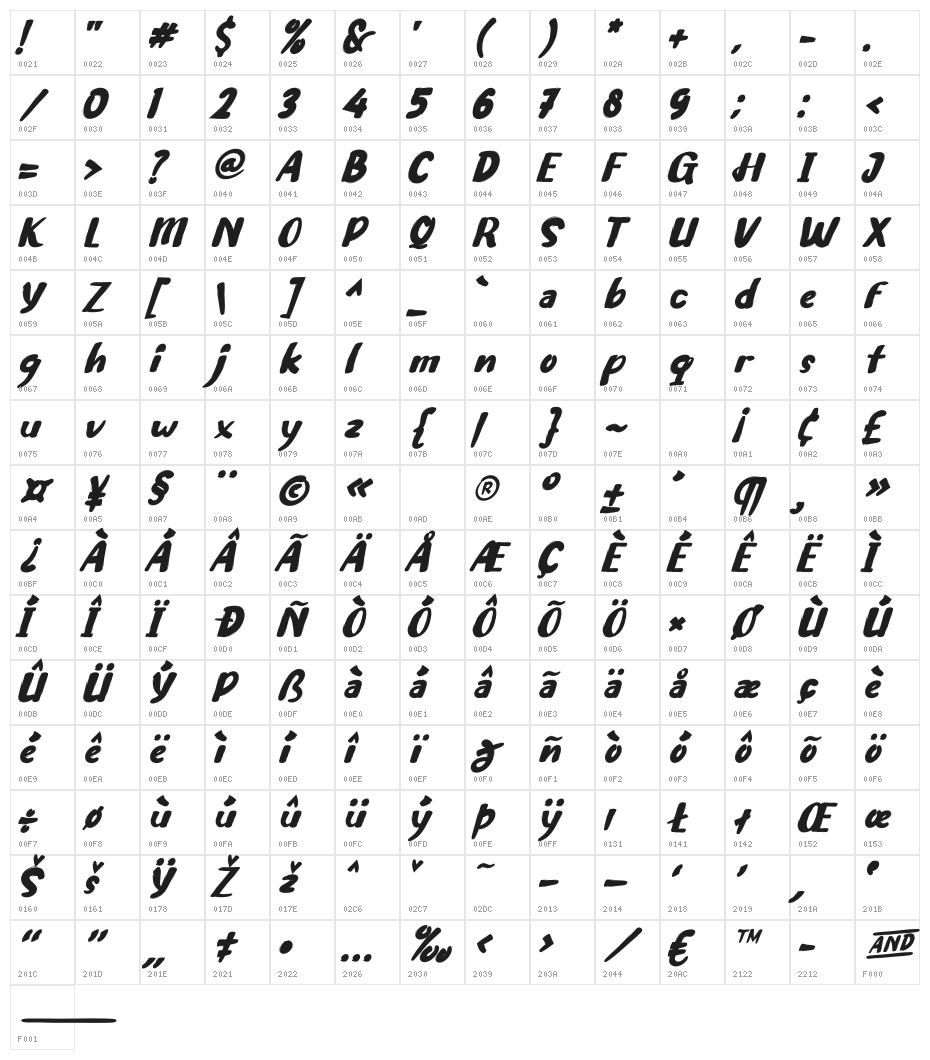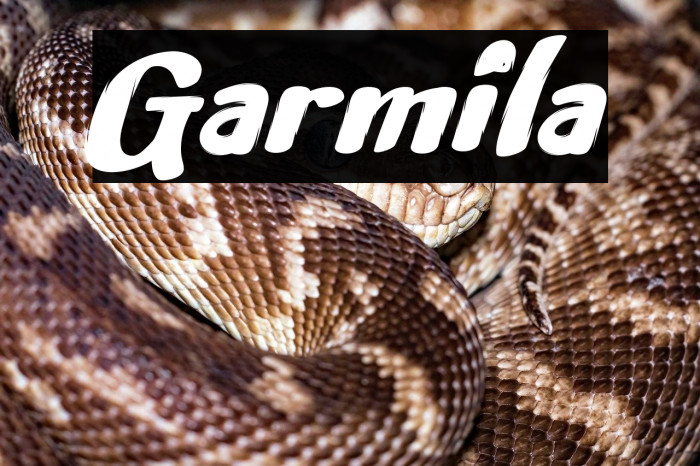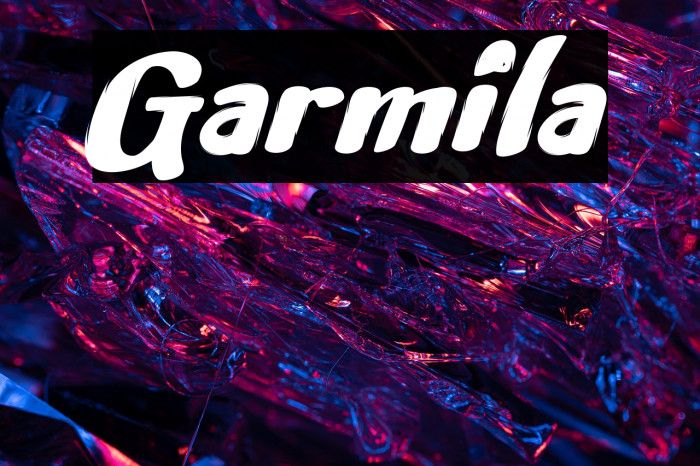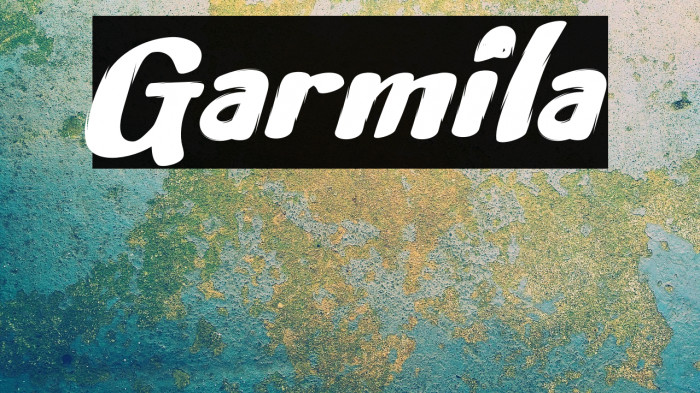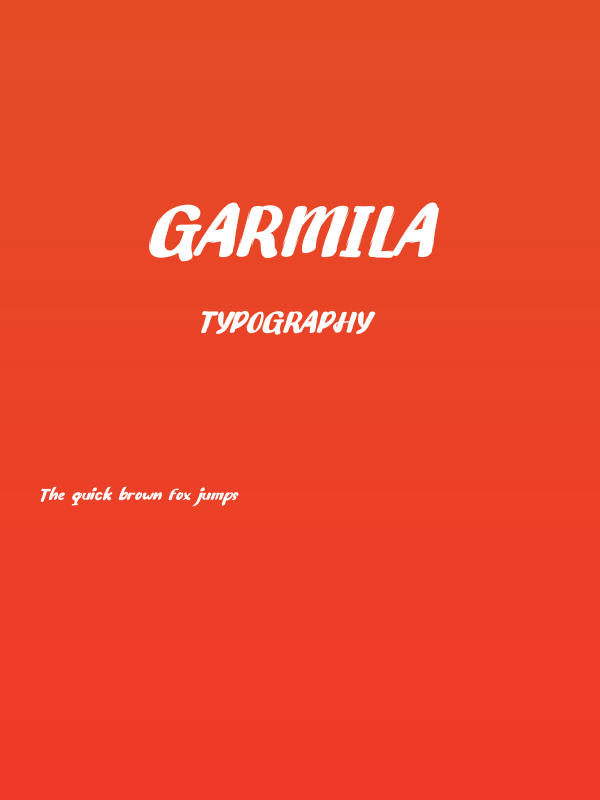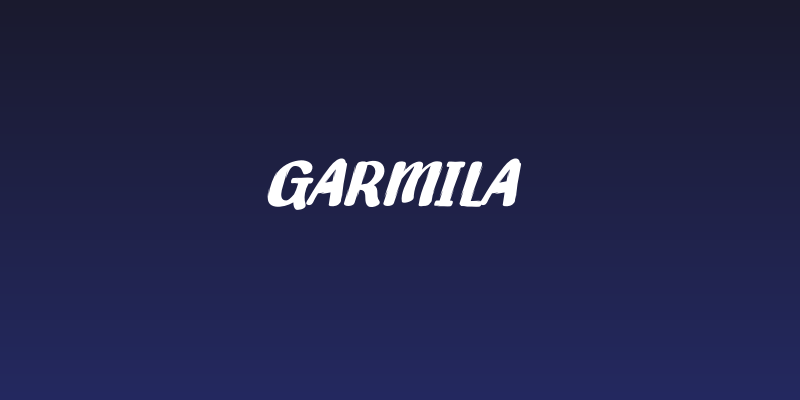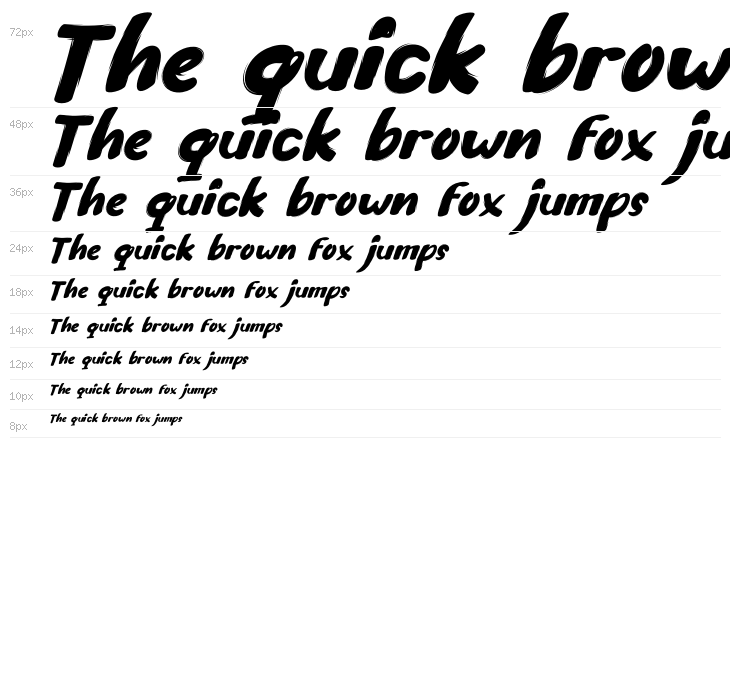
Garmila Font
Garmila Description
This font features a bold and dynamic script style with a strong presence. The characters are slightly slanted, giving a sense of motion and fluidity. The strokes are thick and consistent, creating a bold appearance that stands out. The uppercase letters are slightly larger than the lowercase, maintaining a uniform look across the alphabet. The numbers and special characters follow the same bold and expressive style, making them easily readable. This font is ideal for creating impactful designs that require a touch of elegance and flair.
| Proposed Projects | Ideal for branding, logos, headlines, and posters where a bold and expressive style is desired. |